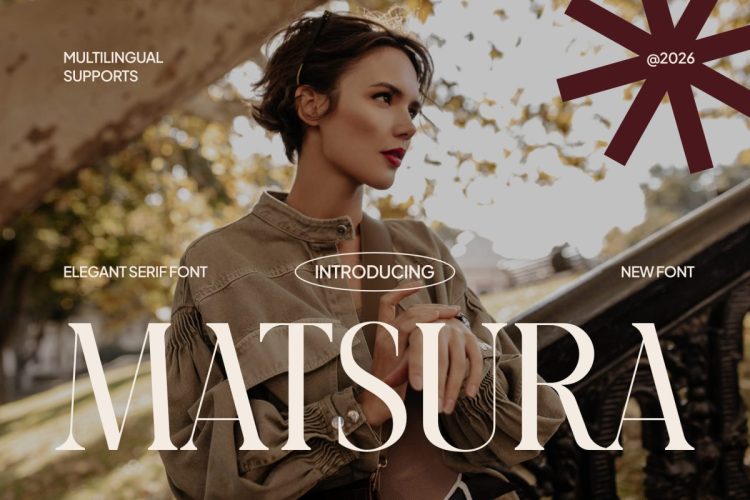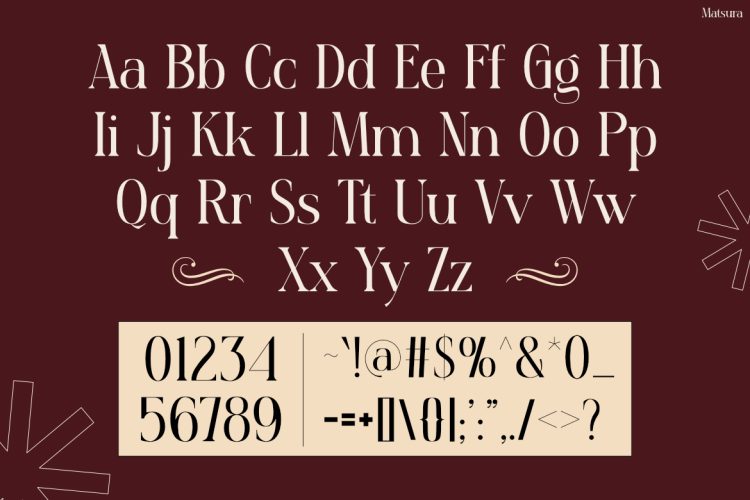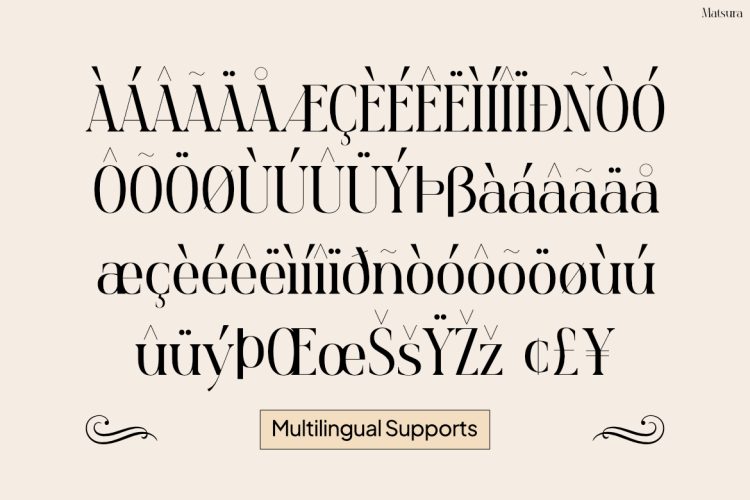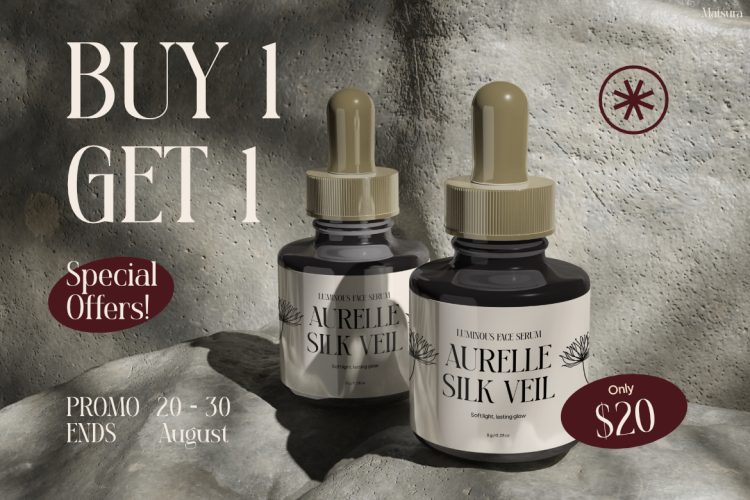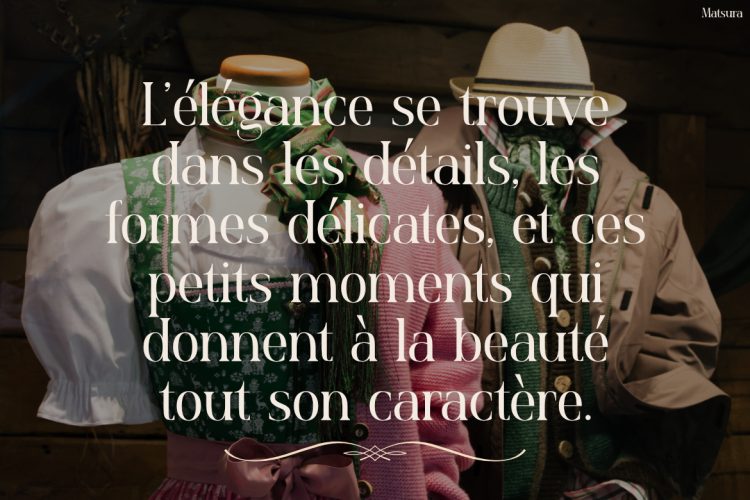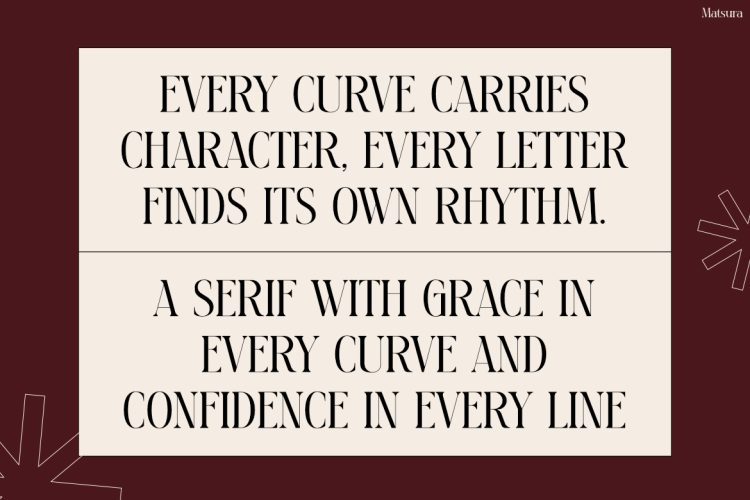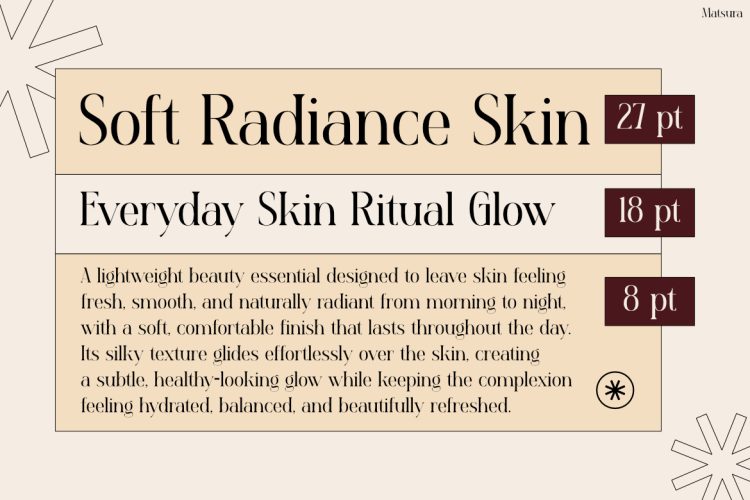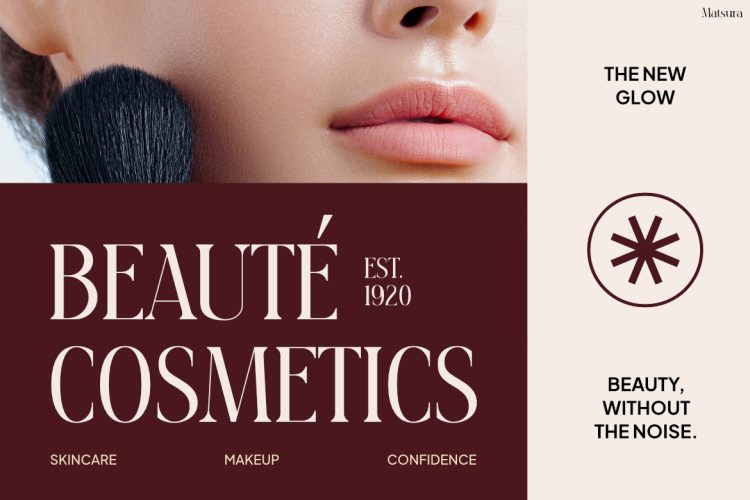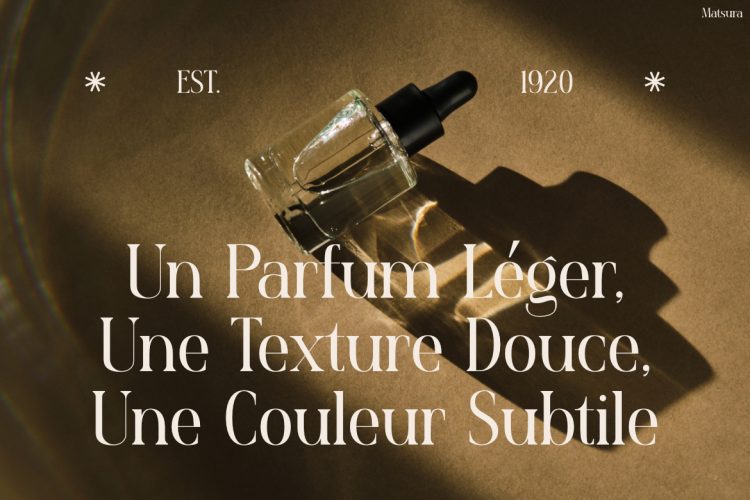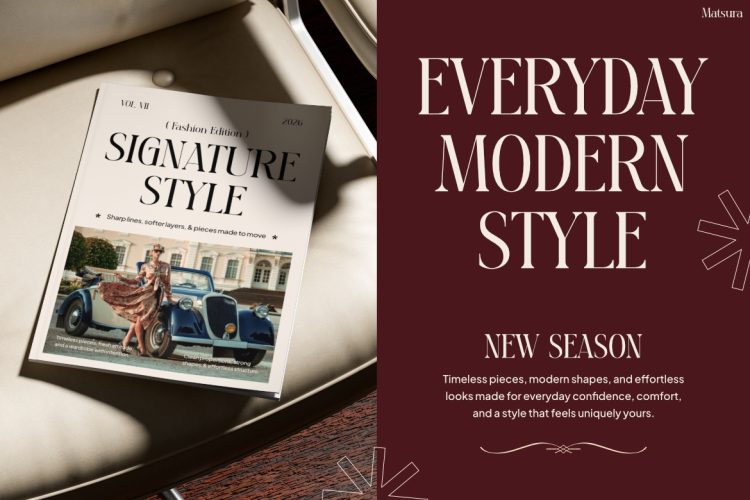
Matsura โ Elegant Editorial Serif Font
Instagram Font Matsura brings a sophisticated editorial feel with elegant high-contrast strokes, graceful proportions, and beautifully refined serif details. First, its delicate thick-and-thin contrast creates a feminine yet confident appearance. Meanwhile, the balanced letterforms keep your layouts clean, polished, and easy to read. Moreover, its timeless structure gives headlines, logos, and product names an instantly elevated look. As a result, Matsura is especially effective for beauty, fashion, cosmetics, perfume, and modern lifestyle branding. In addition, it blends beautifully with photography, minimalist layouts, soft colors, and premium packaging. Therefore, whether you are creating a magazine cover or an Instagram campaign, Matsura adds a stylish finishing touch without overwhelming the design.
Matsura is made for designers who want elegant typography with a modern editorial personality. For example, it works beautifully for fashion magazines, beauty campaigns, skincare packaging, perfume labels, boutique identities, wedding stationery, lookbooks, social media graphics, and product presentations. Furthermore, its refined structure maintains readability while its graceful details create visual character. Because of this, even simple text can feel more intentional and beautifully designed. Likewise, Matsura pairs naturally with photography, minimalist graphics, and sophisticated branding systems.
Instagram Font Matsura Perfect For
Especially, Matsura suits fashion designers, beauty brands, cosmetic businesses, photographers, creative studios, editorial designers, lifestyle creators, and branding specialists. Additionally, its multilingual support covers 67 languages, making it a flexible choice for international creative projects.
Elevate Every Letter
If your design needs elegance with a modern edge, Instagram Font Matsura is ready to deliver. So, bring its graceful editorial personality into your next project and make every headline feel beautifully considered. Ultimately, Matsura is the typeface for designs that deserve a little extra sophistication.